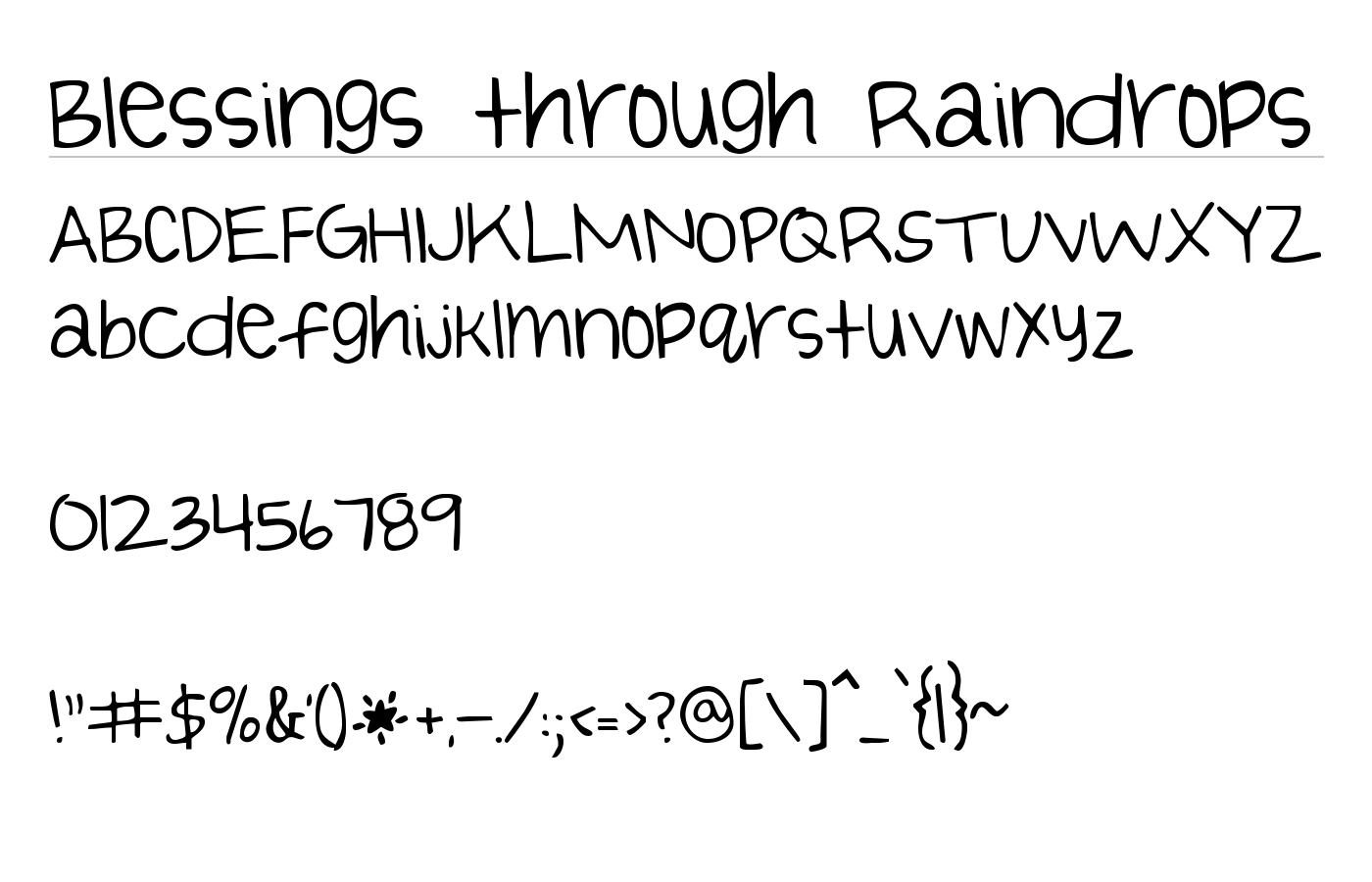
Blessings through Raindrops is a playful, hand-drawn sans serif font with a casual and friendly feel. Its thin, slightly irregular strokes and rounded letterforms create an approachable, whimsical style perfect for informal designs, kids’ projects, and creative branding. This font works best in headlines, invitations, and any context where a fun, personal touch is desired.
Blessings through Raindrops Font
About Blessings through Raindrops Font
| Font family | Blessings through Raindrops Font |
| Designer | Kimberly Geswein |